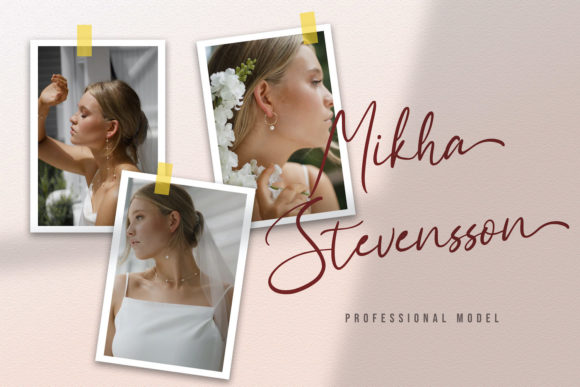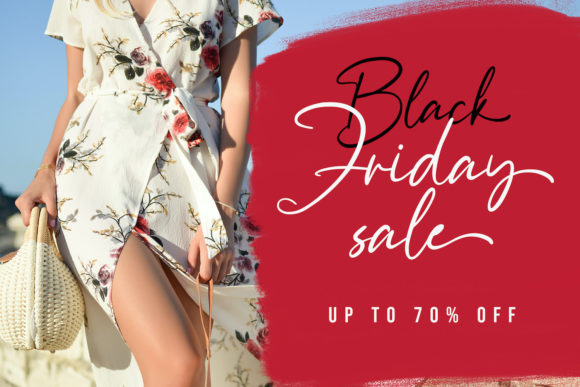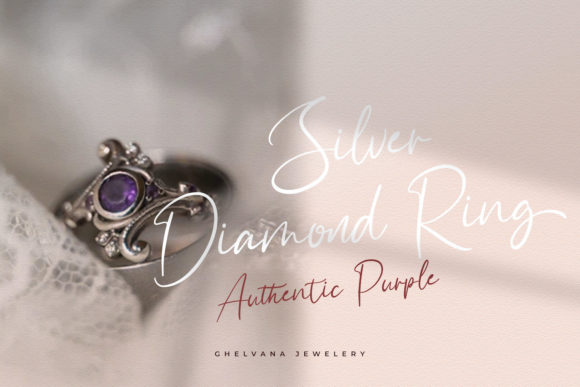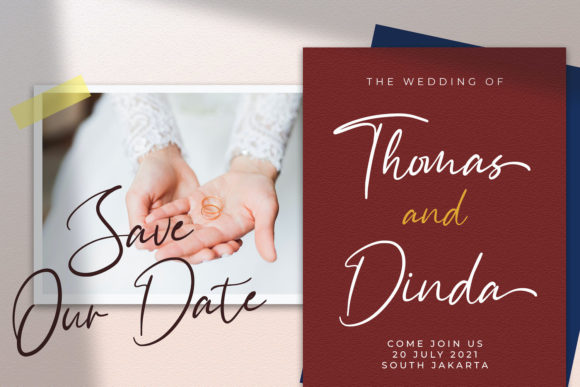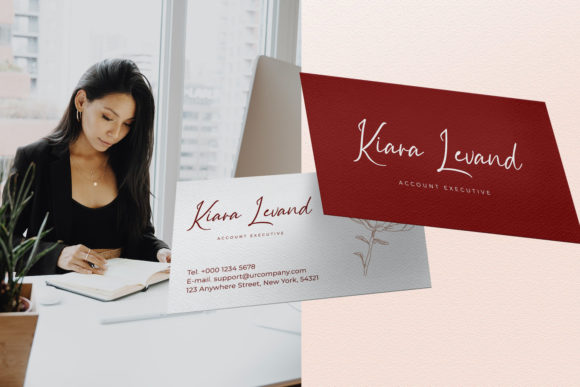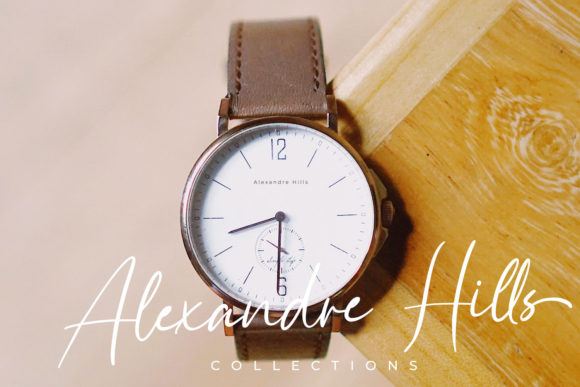
The Aliya Ramsey Font: A Delicate, Elegant Script to Elevate Your Designs
Have you ever been in the middle of a design project, and suddenly, you just can’t seem to find the right font? I recall a particularly frustrating experience when I was working on a wedding invitation suite for a client. I had a clear vision of what I wanted to achieve – elegant, sophisticated, and romantic – but no matter how many fonts I tried, nothing seemed to fit the bill. That was until I stumbled upon the Aliya Ramsey font. ✨
A Personal Review: What I Love About Aliya Ramsey
• ✅ Delicate and elegant: Aliya Ramsey is a beautifully crafted handwritten font that exudes sophistication and refinement.
• ✅ Well-balanced characters: The font features well-proportioned characters that work harmoniously together, making it a joy to use.
• ✅ PUA encoded: The font is PUA (Private Use Area) encoded, which means you can easily access all the glyphs and swashes without any hassle.
• ✅ Versatile: Aliya Ramsey is versatile enough to match a wide range of designs, from romantic wedding invitations to elegant branding materials.
While Aliya Ramsey is an exceptional font, there are a few minor quirks to be aware of:
• ⚠️ Legibility at small sizes: As with many script fonts, Aliya Ramsey may become less legible at very small font sizes. It’s best used at larger sizes (around 20-30px or more) to showcase its beauty.
• 🤔 Pairing with bold fonts: While Aliya Ramsey pairs well with many font combinations, it can get a bit lost when paired with very bold or heavy fonts. Experiment with different pairings to find the perfect balance.
While the origins of Aliya Ramsey are shrouded in mystery, it’s clear that the designer was inspired by the beauty of handwritten scripts. The font’s creator likely drew from a range of traditional and modern calligraphy styles to craft a unique, elegant script that would delight designers and readers alike.
Q: Is Aliya Ramsey suitable for body text?
A: While Aliya Ramsey is a beautiful font, it’s best used for headings, titles, or short paragraphs. Its elegance and flair make it less suitable for long-form body text.